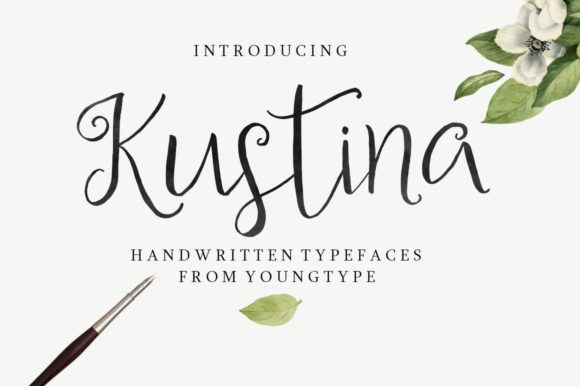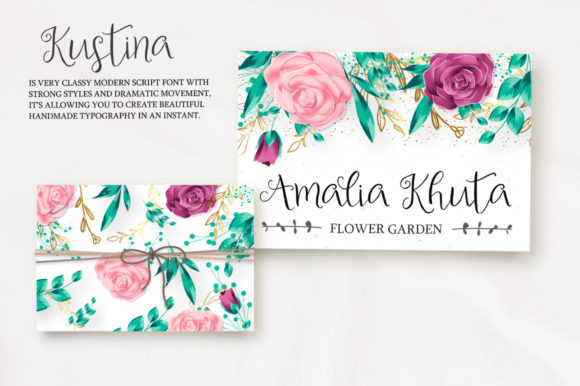
About Kustina Script Font
Kustina Script is a lovely script font featuring charming, playful characters that seem to dance along the baseline. Add this font to your most creative ideas, and notice how it makes them stand out! Kustina Script is PUA encoded which means you can access all of the glyphs and swashes with ease!Â